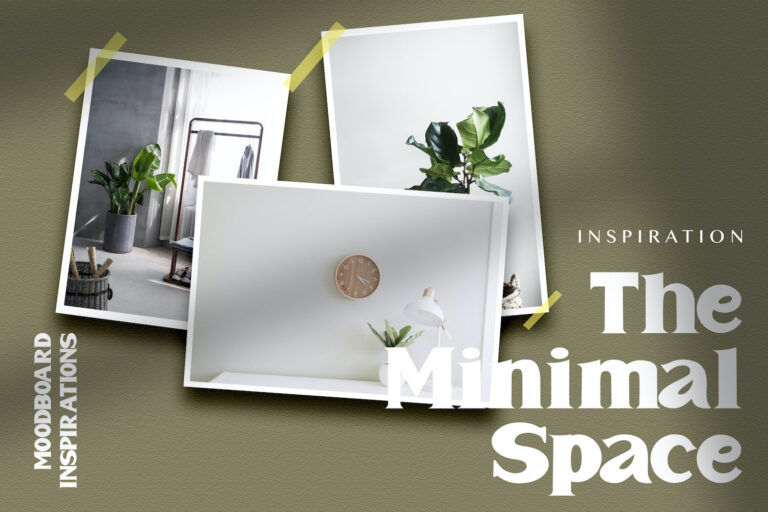
Mister Saefudin is a display serif by Stringlabs that speaks with tradition and quiet authority—built on the visual language of classic book typography, vintage signage, and old-world print ephemera. Its sturdy proportions and softly bracketed serifs evoke the sense of something established: a nameplate on a storefront, a heritage label, or a title set in a well-kept archive.
Its classic character comes from confident, grounded letterforms: broad stems, firm serifs, and a balanced contrast that feels timeless rather than trendy. Uppercase forms carry a stately, almost monumental presence, while the lowercase stays warm and readable—ideal for short lines that need to look refined without becoming fragile.
The typeface also carries a “crafted” sensibility. Spacing is handled with care, supported by built-in kerning for cleaner pair relationships, and subtle OpenType styling adds tasteful personality through stylistic alternates (select letters such as A, K, R, and y). The result is a font that feels deliberately made—like lettering that’s been proofed for print, not merely drawn for effect.
In tone, Mister Saefudin projects prestige without shouting. It’s bold enough to command attention, yet classic enough to feel trustworthy—well-suited to brand marks, badges, editorial titles, packaging, invitations, café or boutique identity systems, and any design that benefits from a heritage voice with modern polish.
In contemporary use, Mister Saefudin remains highly relevant when paired with clean sans-serifs or neutral text faces—letting it lead the headline while supporting typography handles longer reading. Use it where clarity and character matter most: logos and titles (24–120 pt / 28–120 px), short statements and signage, and printed pieces that want an established, premium feel. License: Free Personal Use Only.